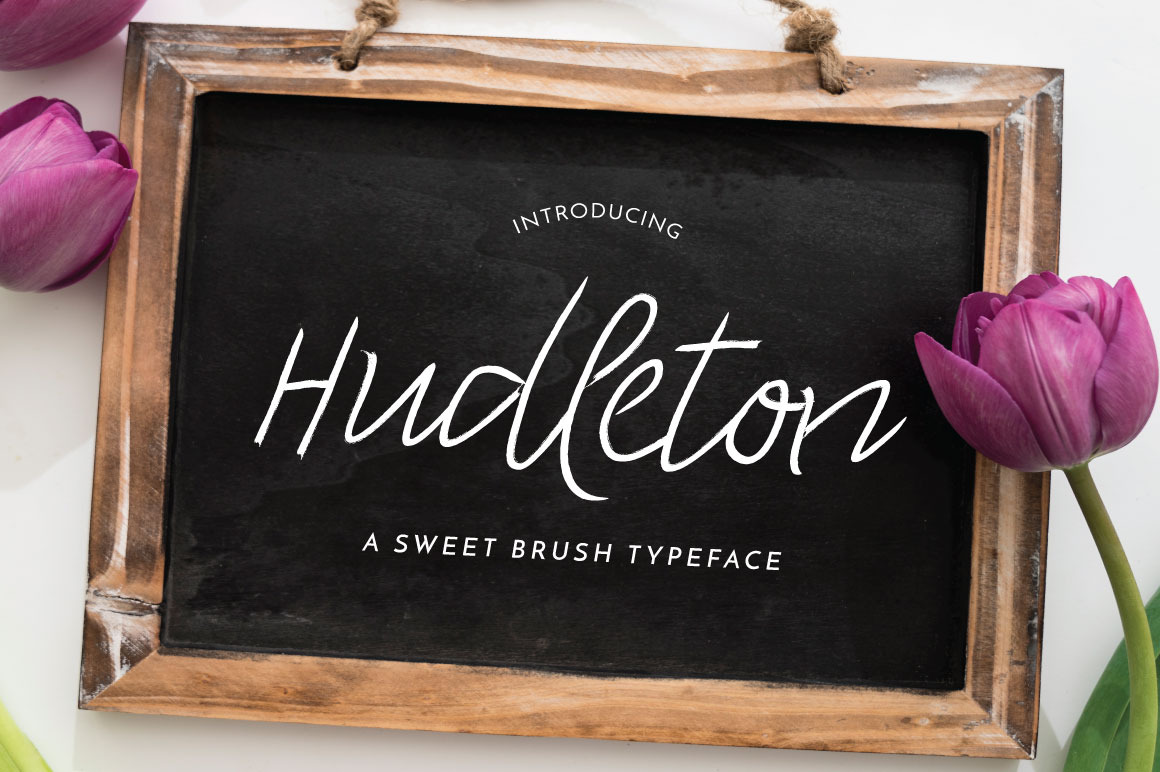
Hudleton Typeface
Hudleton is a parched brush font which unique and fast writes faulty hand written look & just the right amount of roughness. Balancing between scratch and flash style to help you create the look of bizarre custom hand-lettering. Hudleton is just what you've been looking for!
Use Hudleton on all of your projects to give it a imperfect hand brushed font. In specific would look great on, branding projects, logos, product packaging, posters, invitations, greeting cards, titles, blogs, everything that includes personal charm and you name it. ;)